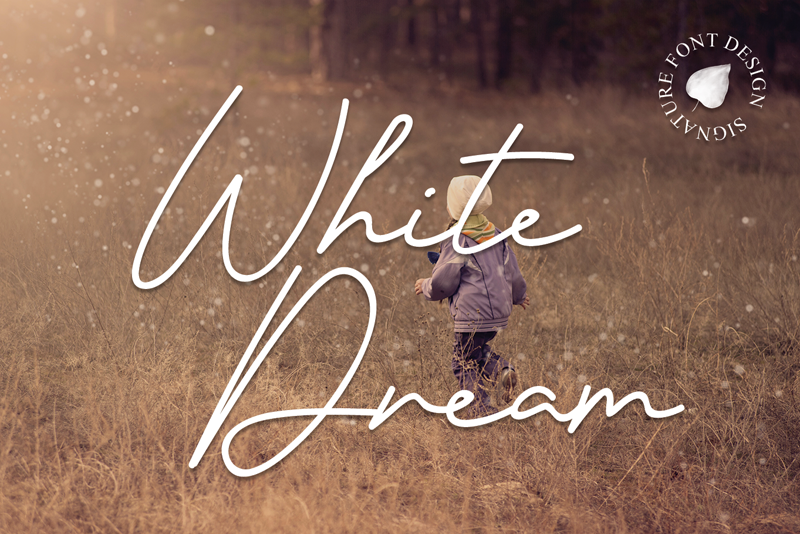
White Dream is an exquisite handwritten font. Masterfully crafted to become a true favorite, it will add a touch of elegance to any creative project. Contemporary and fresh, it will make your work stand out! Attention : White Dream handwriting Font is prohibited to use this font for commercial purposes or for profit without the permission of the author/admin, without being known to use this font without permission, will be subject to sanctions 5x the specified price. This font is used only for demos (Demo license) If you want to use this font for commercial use please contact email: luluksurotul123@gmail.com or click the link below: https://www.creativefabrica.com/product/white-dream/ref/698281/ If you want to see more other fonts, please click: https://www.creativefabrica.com/designer/behind-the-ink/ref/698281/ Any donations are very appreciated. Paypal account for donation: https://www.paypal.com/paypalme/luluk783 thanks. |